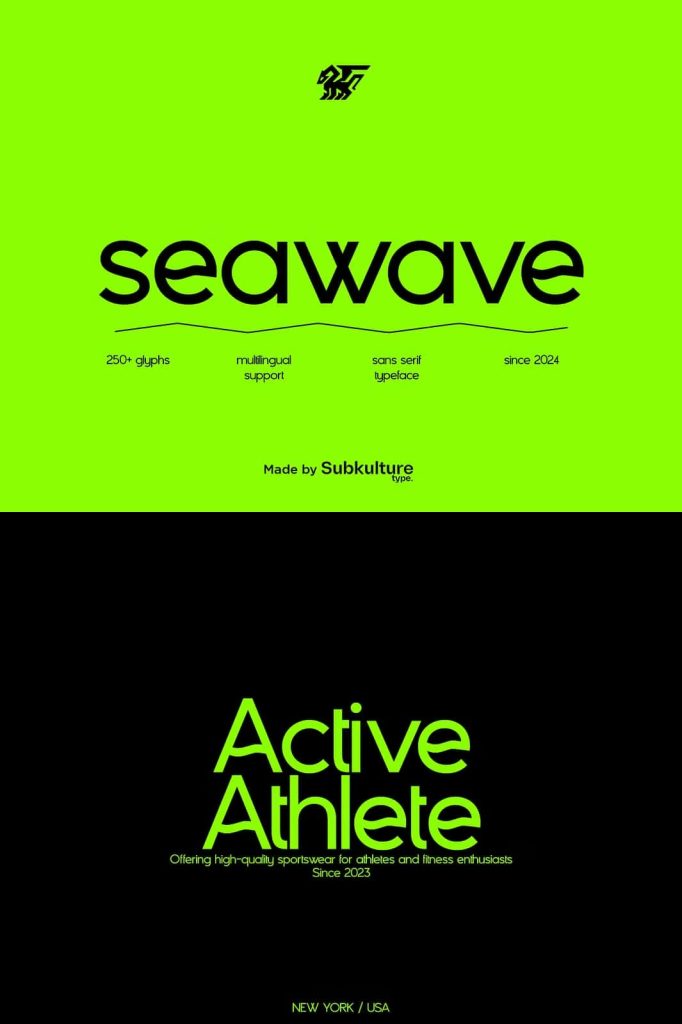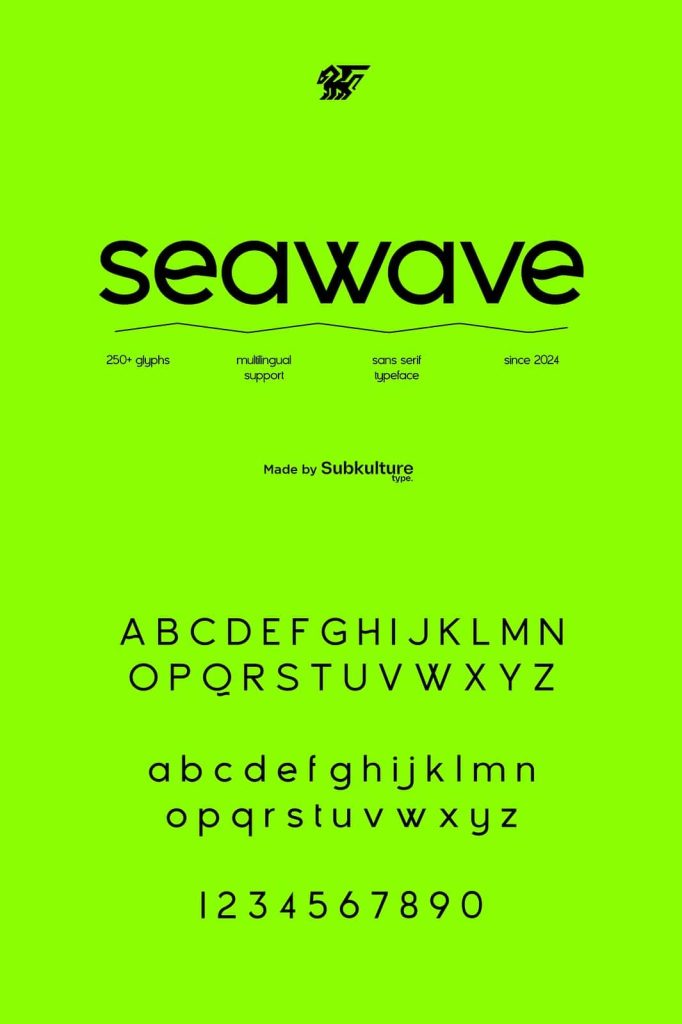
Seawave – Unique Sans SerifleastedJuly 17, 2025Fonts Seawave is a unique sans serif font inspired by the fluidity and movement of ocean waves. Download